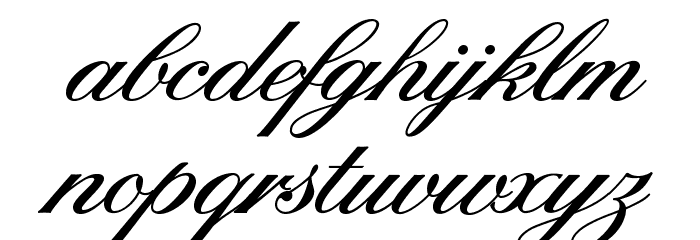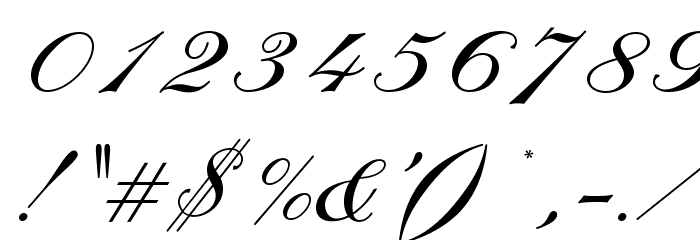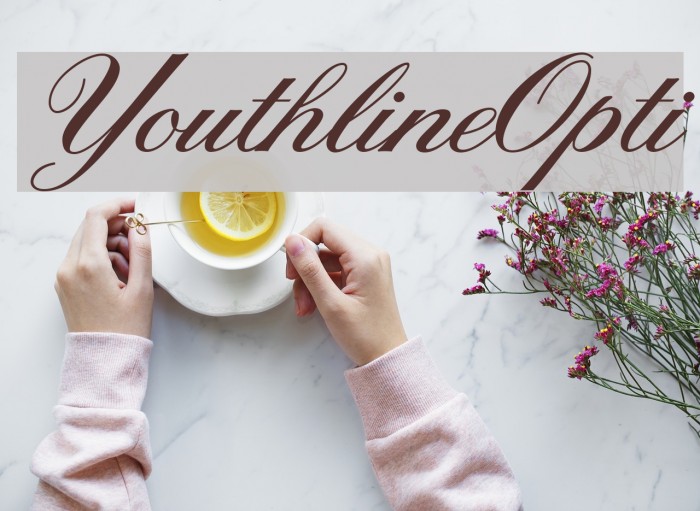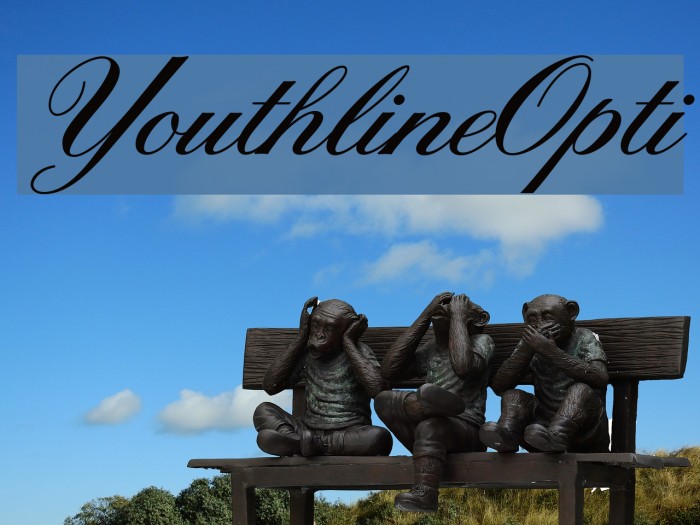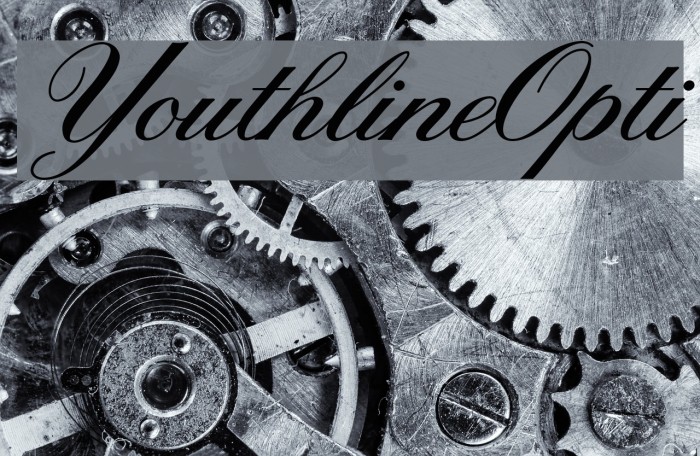
YouthlineOpti Font
This elegant script font features a flowing, cursive style with high contrast between thick and thin strokes. The uppercase letters are ornate and sophisticated, with intricate loops and swashes that add a touch of formality and grace. The lowercase letters maintain a smooth, connected flow, enhancing readability while preserving the decorative nature of the font. The numerals are styled to match the overall script aesthetic, with a slight slant and delicate curves. Special characters are thoughtfully designed, integrating seamlessly with the rest of the character set. This font exudes a sense of elegance and refinement, making it ideal for formal invitations, branding, and other projects that require a touch of sophistication.
An elegant script font with flowing, high-contrast strokes and ornate details.
- Proposed Projects: Ideal for wedding invitations, luxury branding, elegant stationery, and formal event programs.
- Overall Style: Elegant, Formal
- Use Case: Invitations, Branding, Formal Documents